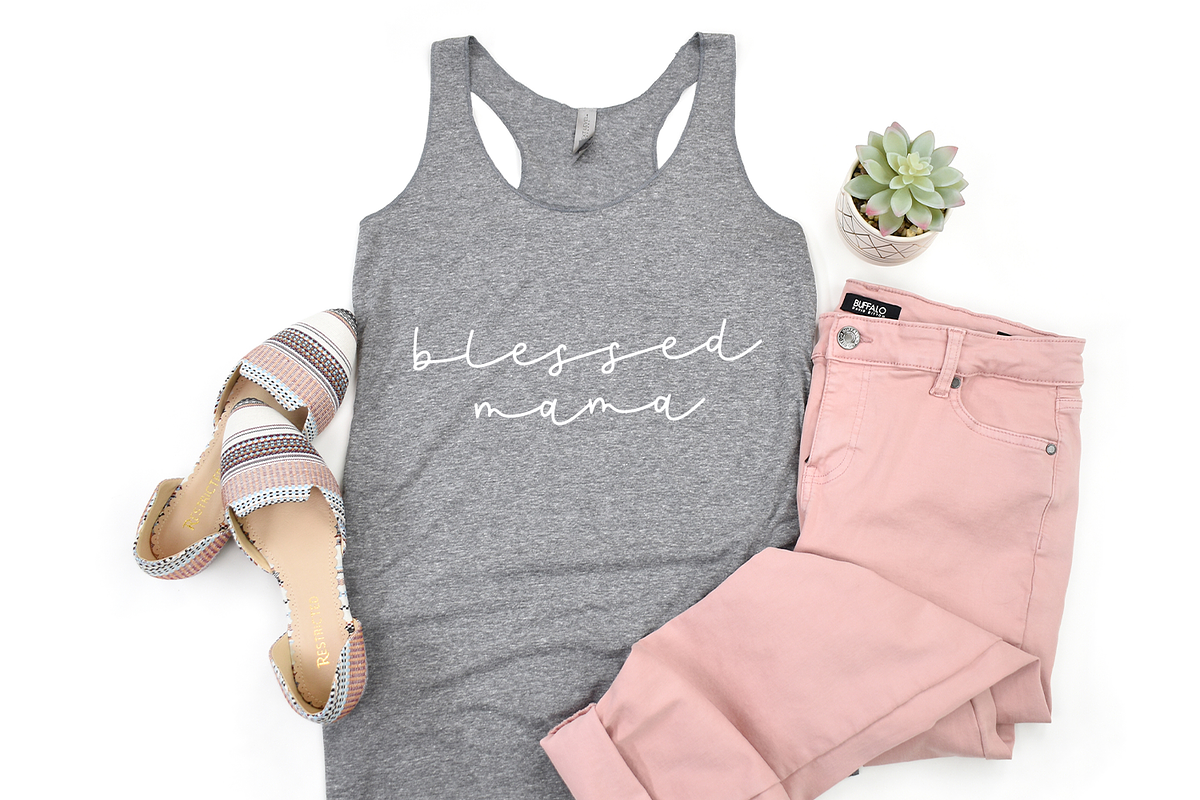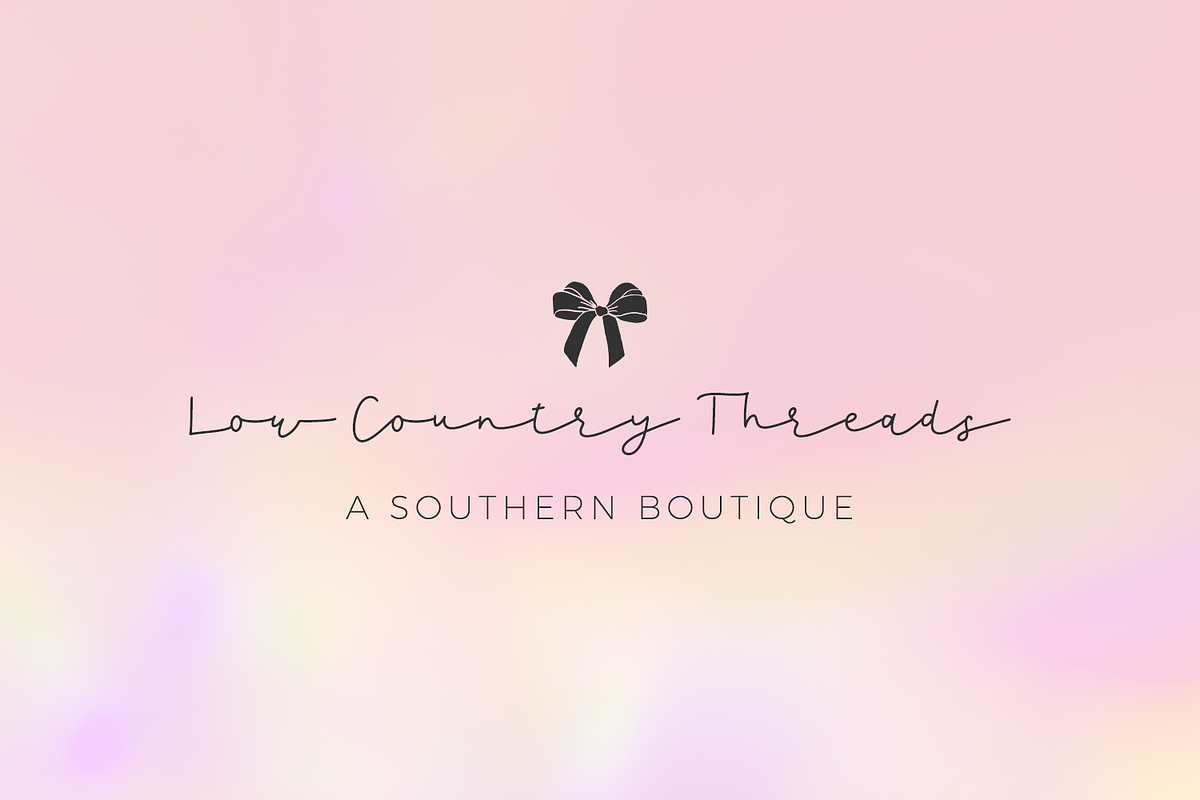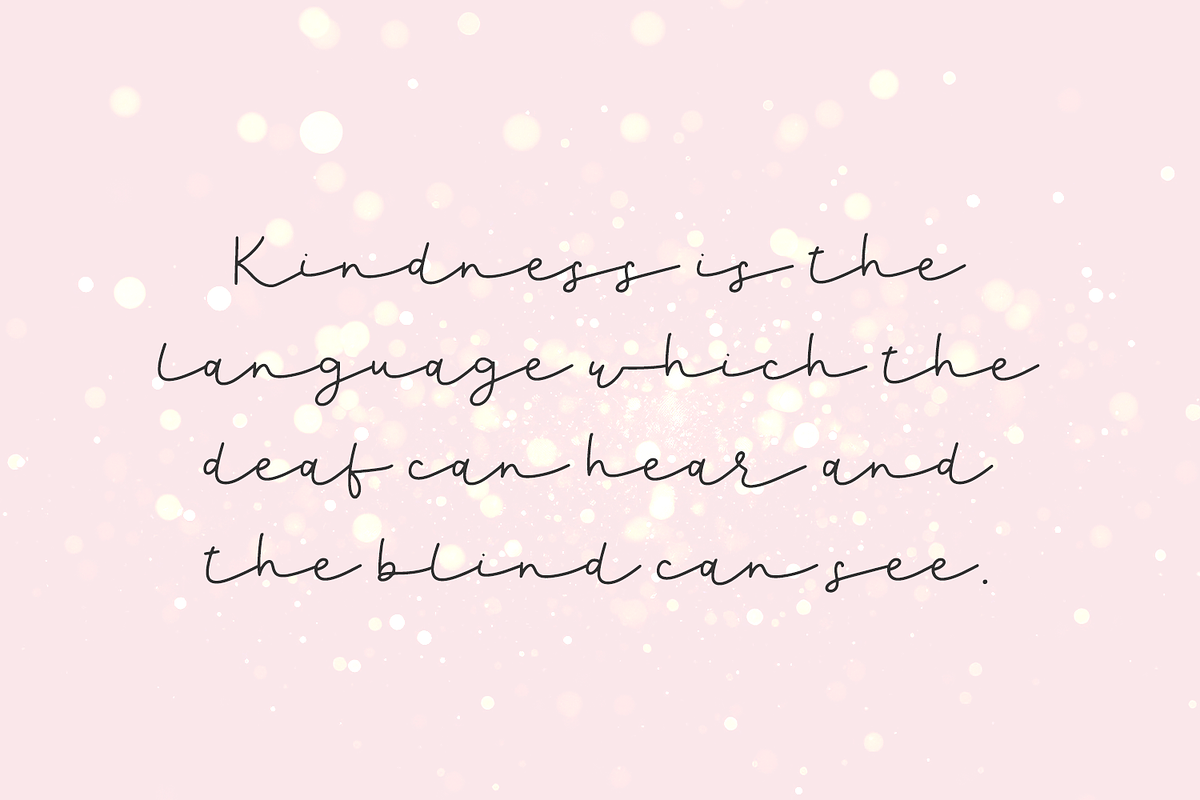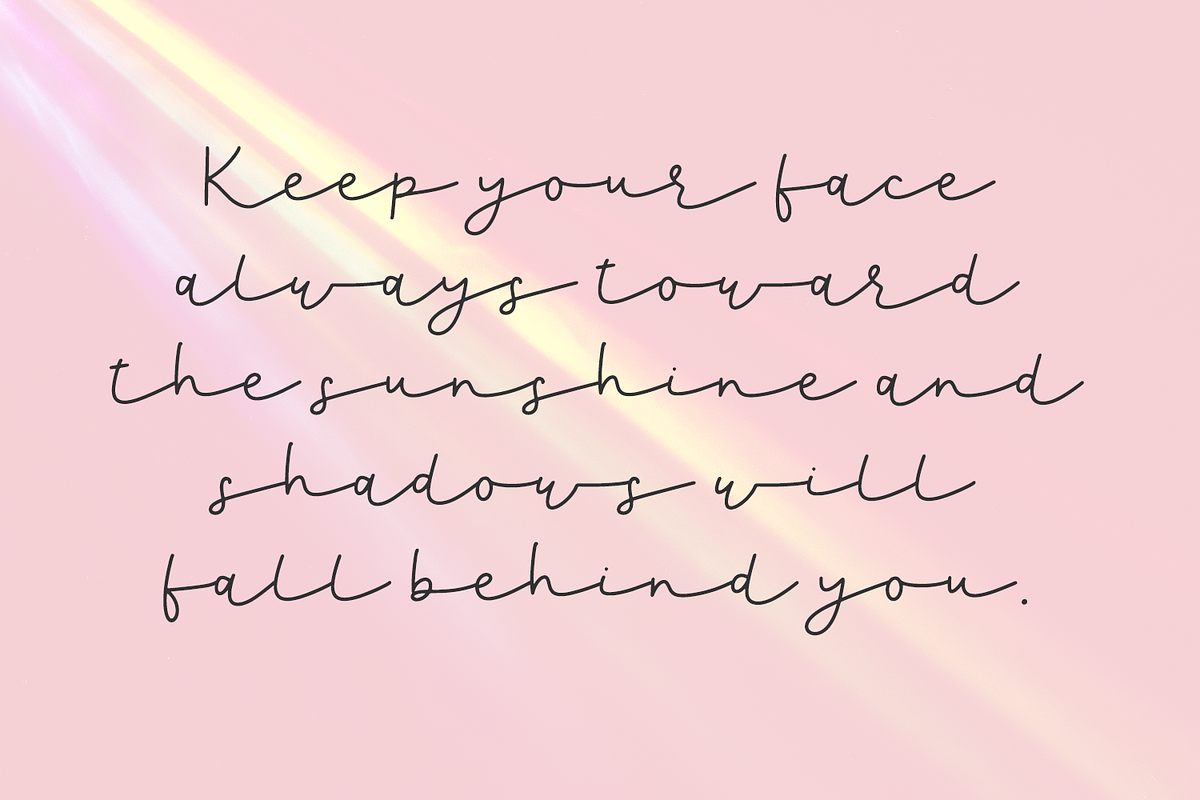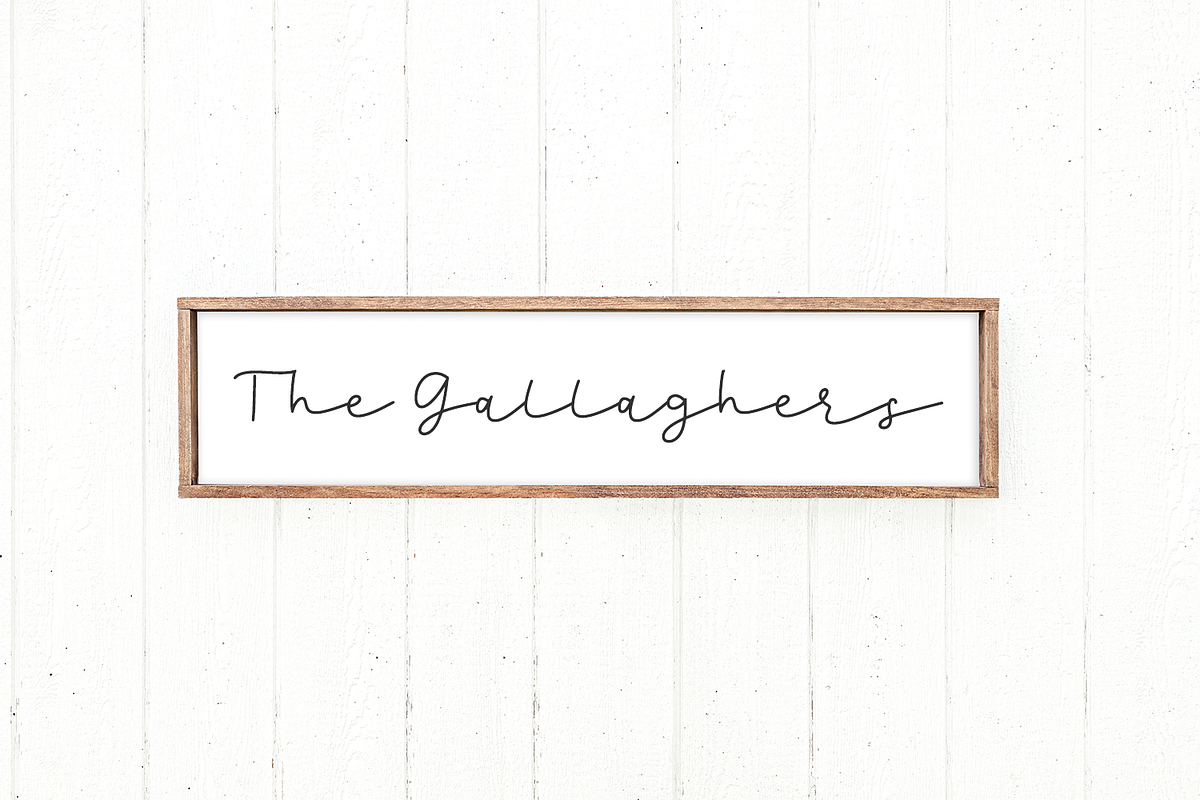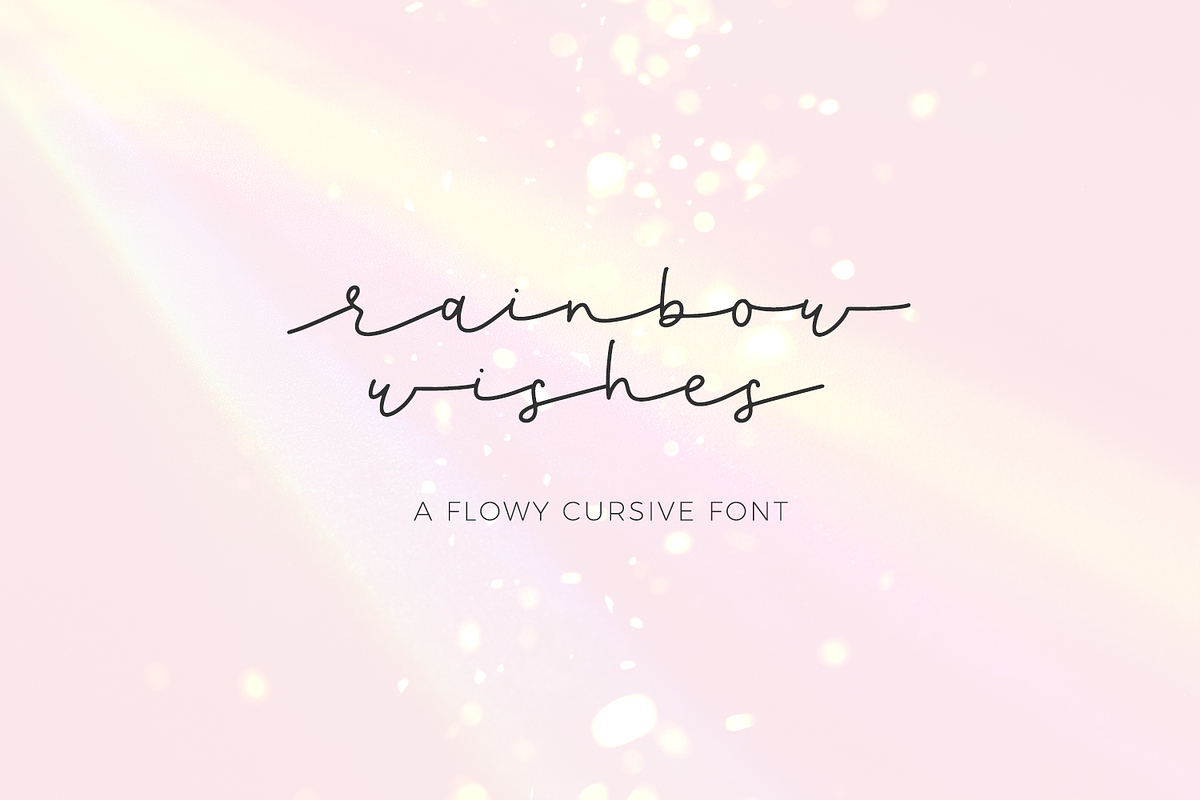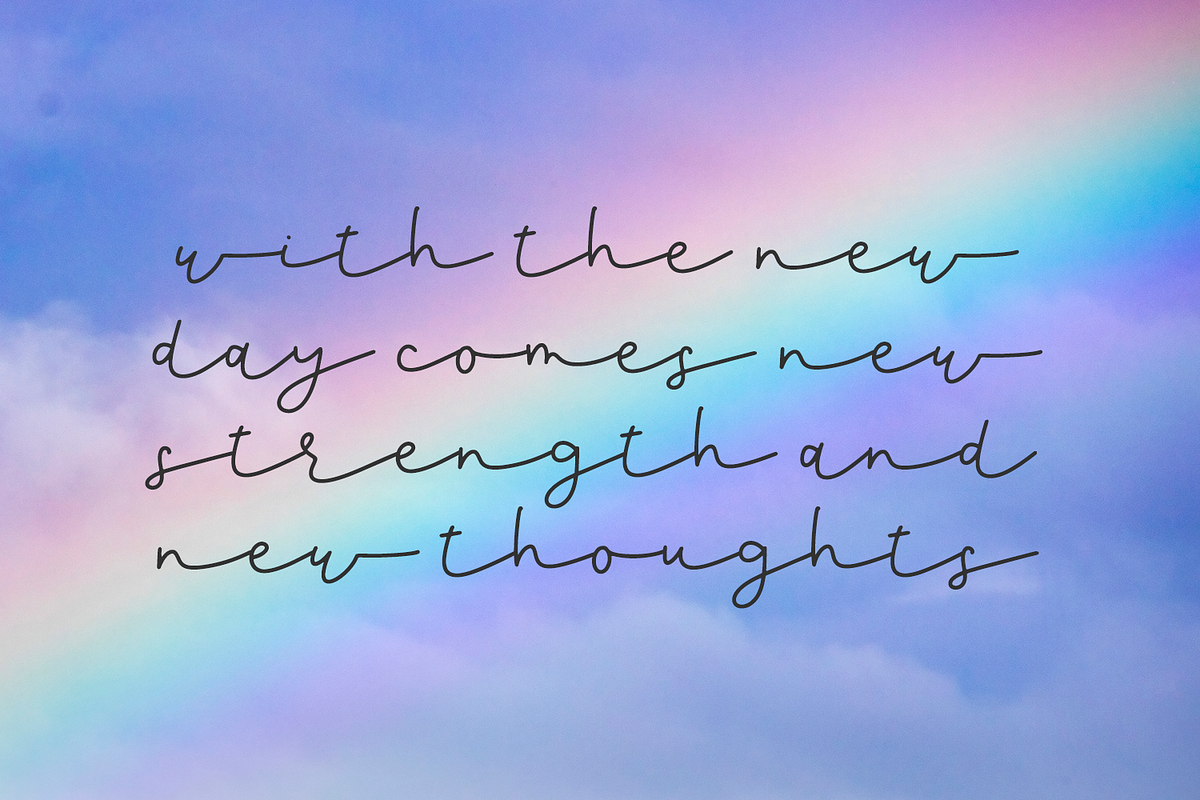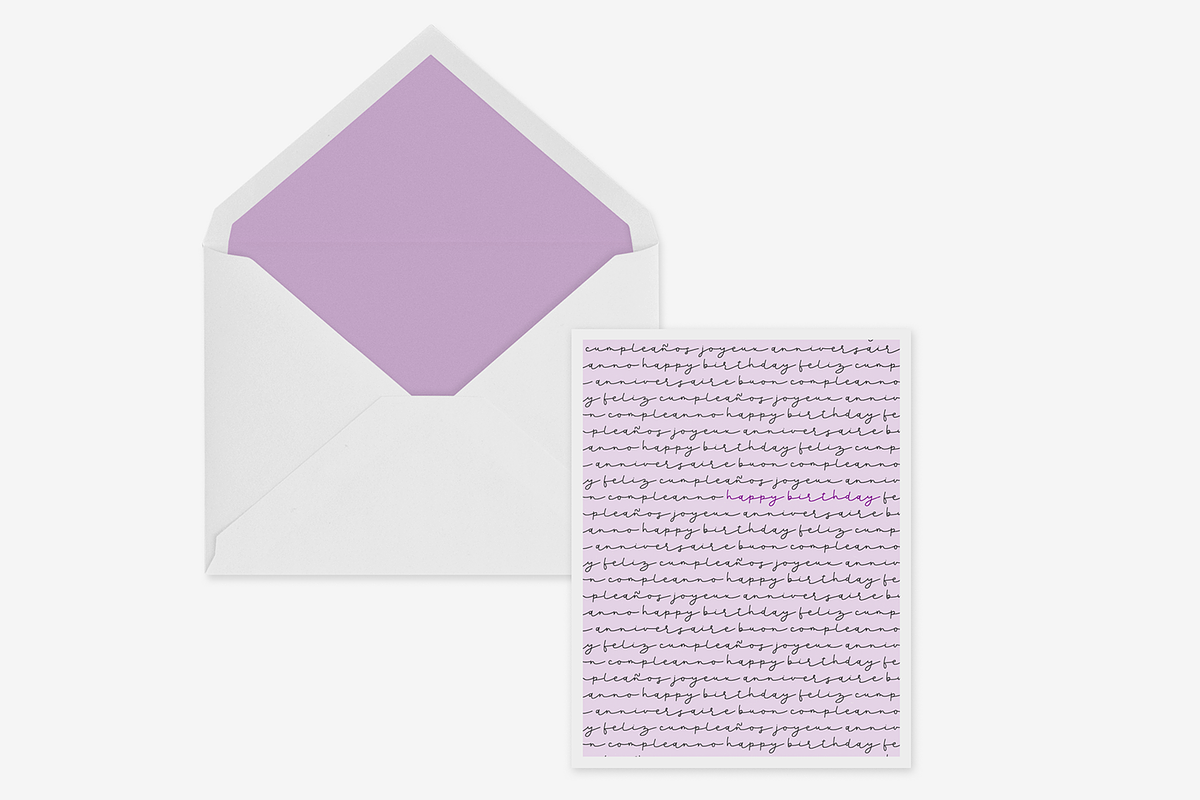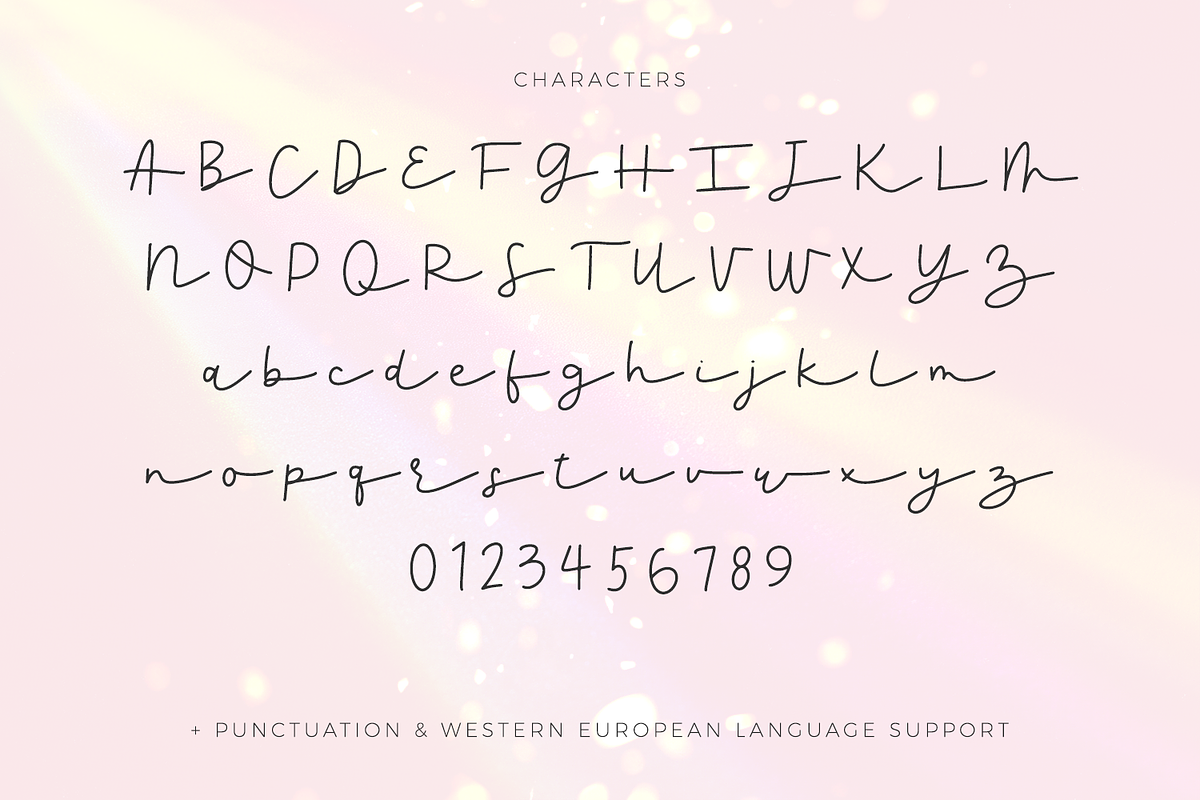
Rainbow Wishes Script
Introducing Rainbow Wishes, a flowy cursive font with thin lines. Rainbow Wishes is perfect for wedding invitations, greeting cards, social media posts, marketing materials, watermarks, logos & branding, or quote graphics, Canva, Cricut projects, Silhouette projects, designing SVG files, laser cutting projects, & more.
Rainbow Wishes Script includes:
\- full upper + lowercase characters
\- numbers + punctuation
\- Western European language support - English, French, Spanish, Portuguese (Brazil), Portuguese (Portugal), Italian, German (Germany), German (Austria), Dutch, Danish, Swedish, Norwegian (Bokmål and Nynorsk), Finnish, Icelandic, Irish, Welsh